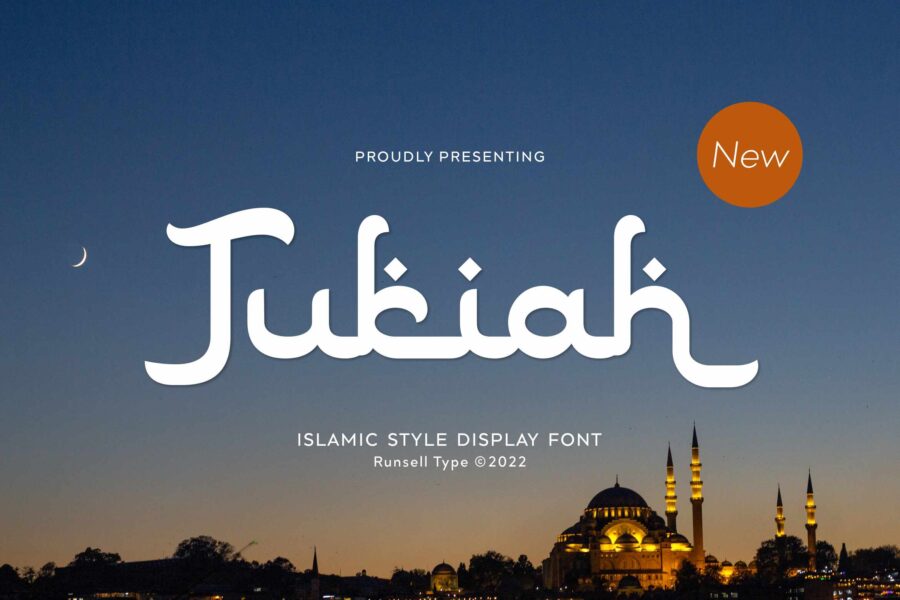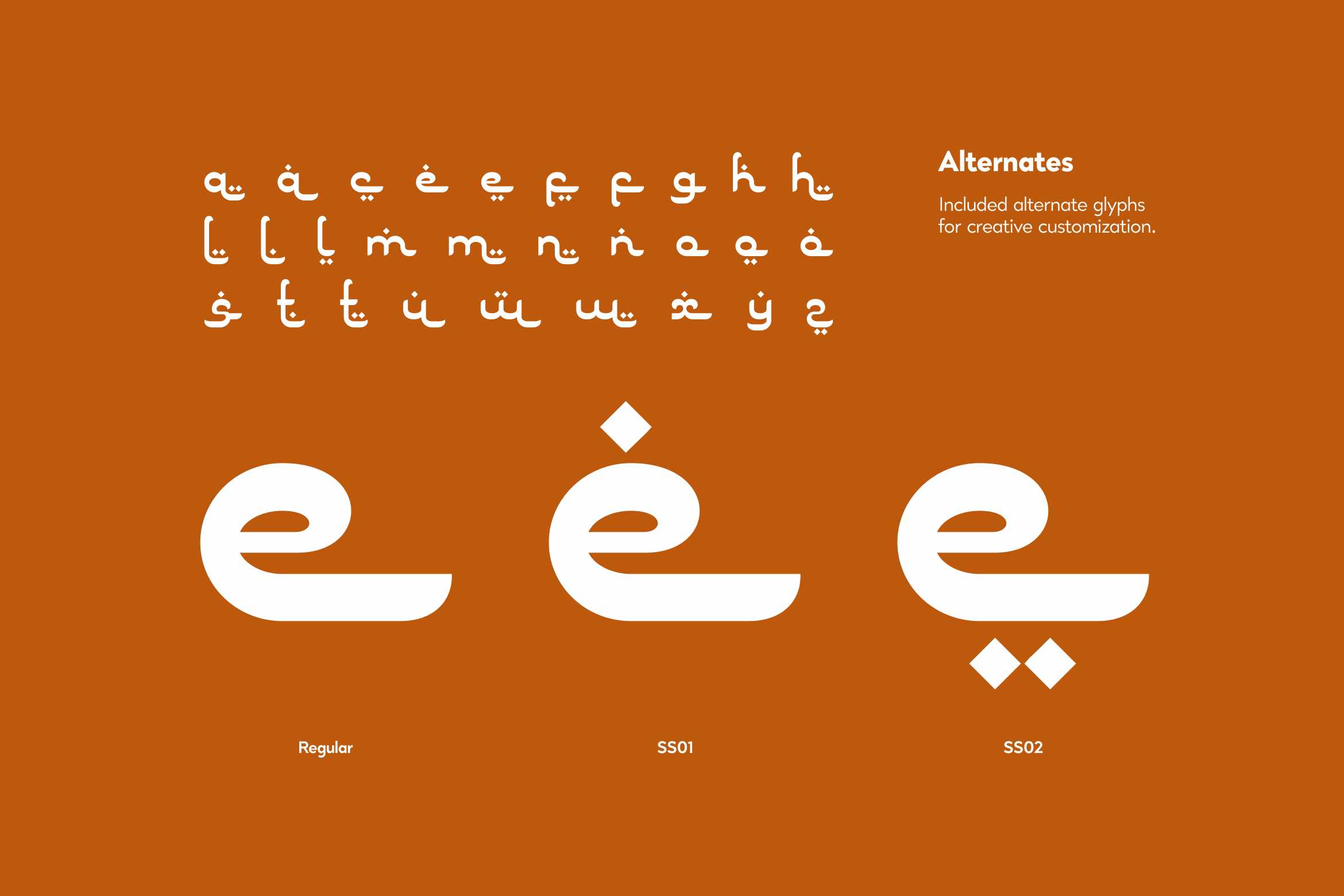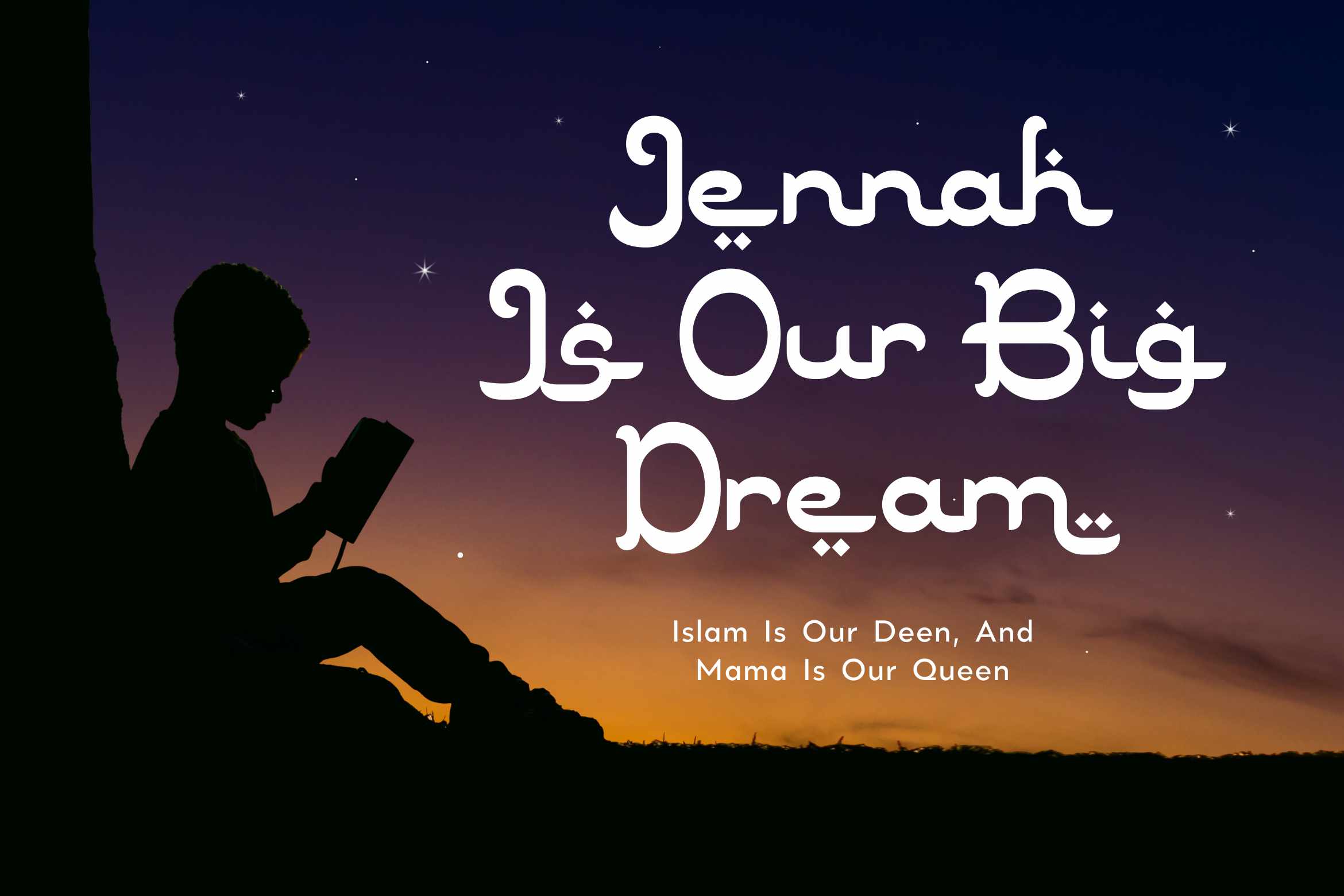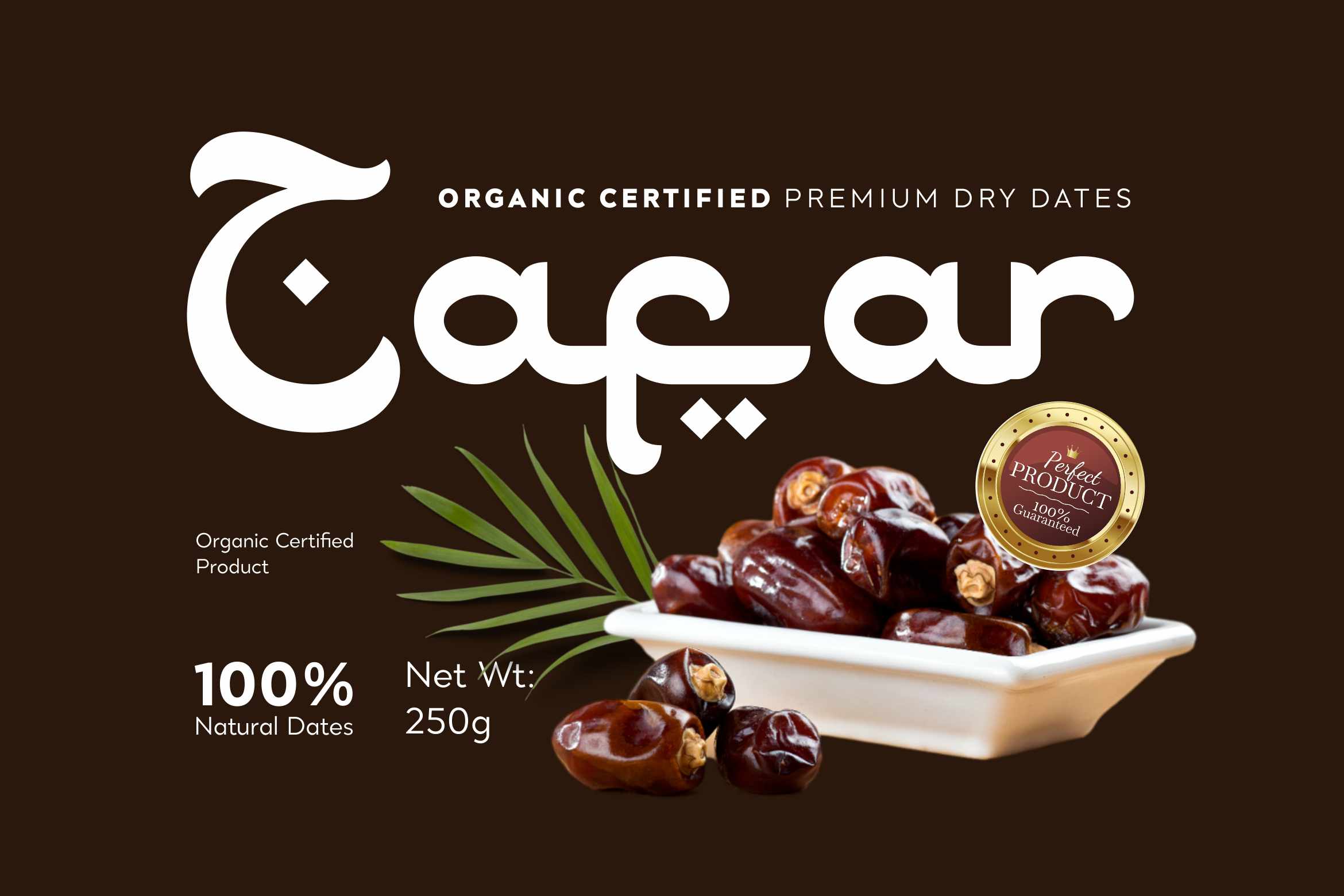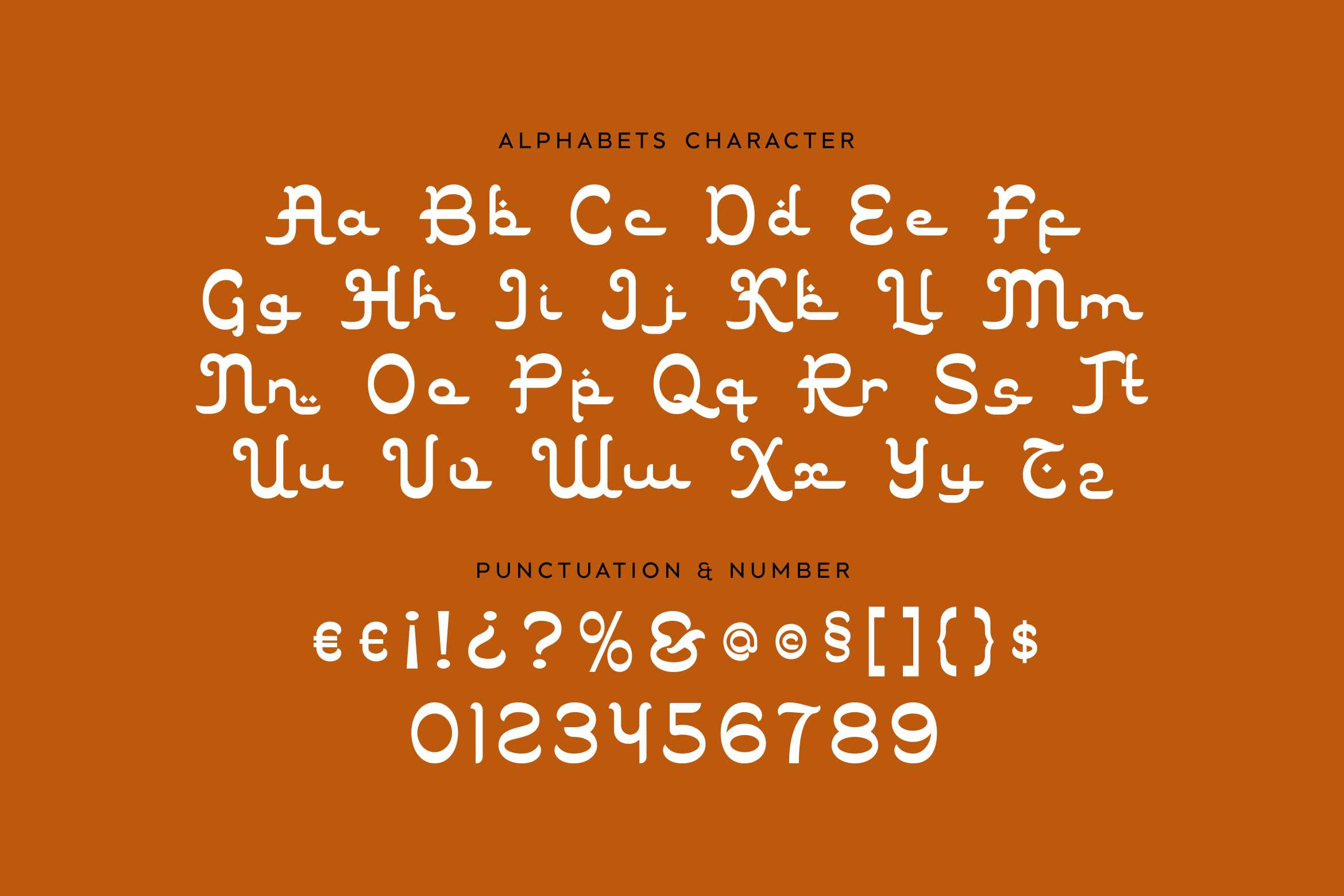
Tukiah
Tukiah is a charming and modern Islamic display font with a clean, fluid style that blends Arabic-inspired aesthetics with rounded Latin typography. Its unique design features smooth curves and ornamental dots, making it a perfect choice for Ramadan promotions, Eid greetings, Middle Eastern product branding, and Islamic-themed children’s books. The font’s legibility and soft character give it a friendly yet culturally rich tone.
Equipped with alternate characters and ligatures, Tukiah offers flexibility and visual interest across various creative projects. Whether used for logos, packaging, or inspirational quotes, this typeface brings a contemporary Islamic flair to any design, all while maintaining a sense of warmth and spirituality.